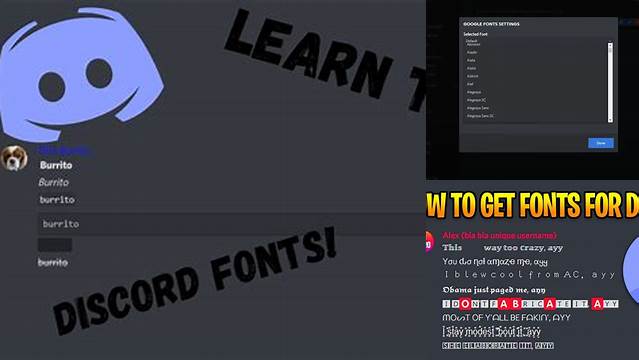
Discord Fonts On Mobile: How To Get Them!
Hey guys! Ever wondered how to spice up your Discord mobile chats with cool and unique fonts? You're not alone! Many Discord users are looking for ways to stand out and personalize their messages. While Discord doesn't offer a built-in font customization feature on its mobile app, there are some nifty workarounds you can use to achieve this. This guide will walk you through various methods to get different fonts on Discord mobile, making your conversations more engaging and expressive. Let's dive in!
1. Understanding Discord's Text Formatting
Before we jump into the font-changing methods, it's crucial to understand how Discord handles text formatting. Discord uses a simplified version of Markdown, a lightweight markup language, to format text. This allows you to add italics, bold, bold italics, and other styles to your messages. While these formatting options don't change the actual font, they can add emphasis and visual variety to your text. Mastering Markdown is the first step in making your Discord messages more appealing.
Discord's Markdown formatting is super handy for adding emphasis. You can use asterisks () for italics (like this), double asterisks () for bold (like this), and triple asterisks () for bold italics (like this). You can also use underscores (_) in the same way. For example, italics and bold. Knowing these basics can dramatically improve your text presentation. Another useful feature is the ability to create code blocks using backticks (). Single backticks create inline code snippets (
like this), while triple backticks create multi-line code blocks. This is perfect for sharing code or any text that needs to be displayed in a monospace font. Additionally, you can create quotes using the
>symbol at the beginning of a line. For example,
> This is a quote`. Combining these Markdown techniques can make your messages clearer and more engaging, even without changing the font itself. Understanding these basics will also make the font-changing methods we'll discuss later even more effective.
2. Using Online Font Generators for Discord Mobile
One of the most popular methods to get different fonts on Discord mobile is by using online font generators. These tools allow you to type your message in a specific font style, which is then converted into Unicode characters that Discord can display. These fonts aren't true fonts in the traditional sense; they're stylistic variations created using special Unicode symbols. This means that while they look different, they're still recognized as text by Discord.
Online font generators are incredibly convenient and easy to use. Simply type your message into the generator, and it will provide you with a list of various font styles to choose from. You can then copy and paste your chosen font style directly into your Discord chat. Some popular font generators include LingoJam, YayText, and Cool Fancy Text Generator. These generators offer a wide range of styles, from elegant scripts to bold and playful fonts. It's important to note that while these fonts look great, they are made up of special Unicode characters. This means that some devices or platforms might not display them correctly, or they might appear as empty boxes. However, on most modern devices and within Discord itself, they should render just fine. When using these generators, experiment with different styles to find the ones that best suit your personality and the tone of your messages. Remember to use these fonts sparingly to maintain readability and avoid overwhelming your chat partners. Ultimately, online font generators are a fantastic way to add a unique touch to your Discord messages without needing to install any additional apps or software.
3. Exploring Third-Party Keyboard Apps
Another way to get different fonts on Discord mobile is by using third-party keyboard apps. These apps often come with a variety of built-in fonts and customization options that can be used across different applications, including Discord. Using a third-party keyboard can provide a more seamless experience compared to using online font generators, as you can switch fonts directly from your keyboard without having to copy and paste from an external website.
There are numerous third-party keyboard apps available for both iOS and Android devices, each offering its unique set of features and fonts. Some popular options include Fonts Keyboard, FancyKey Keyboard, and Kika Keyboard. These apps typically allow you to customize the keyboard's appearance, themes, and, most importantly, fonts. Once you've installed a third-party keyboard app, you'll need to enable it in your device's settings. On iOS, you can do this by going to Settings > General > Keyboard > Keyboards and adding the new keyboard. On Android, the process is similar, usually found under Settings > General Management > Language and Input > On-screen keyboard. After enabling the keyboard, you can switch to it within Discord by tapping the globe icon on your keyboard. The specific steps might vary slightly depending on your device and the keyboard app you're using. Once you've switched to the custom keyboard, you can start using the different fonts it offers. Many of these apps also include additional features like emojis, stickers, and GIFs, enhancing your overall messaging experience. However, it's essential to choose a reputable keyboard app to ensure your privacy and security, as these apps have access to everything you type. Always read reviews and check the app's permissions before installing it. Using a third-party keyboard can be a convenient and fun way to personalize your Discord messages with various fonts and styles.
4. Utilizing Discord Bots for Font Customization
While you can't directly change fonts within the Discord mobile app itself, another workaround is to utilize Discord bots. Some bots offer features that allow you to format text in different styles, effectively giving the appearance of different fonts. These bots usually work by processing your message and then sending it back in the desired format, which can include various stylistic text transformations.
To use a bot for font customization, you first need to invite it to your Discord server. Many bots are available online, and you can find them through websites like Discord Bot List or Top.gg. Once you've found a bot with font formatting capabilities, follow the instructions to invite it to your server. After the bot is in your server, you'll typically need to learn the specific commands it uses to format text. These commands often involve prefixes (like !
or -
) followed by a command word and your message. For example, a bot might have a command like !fancy This is my message
to convert